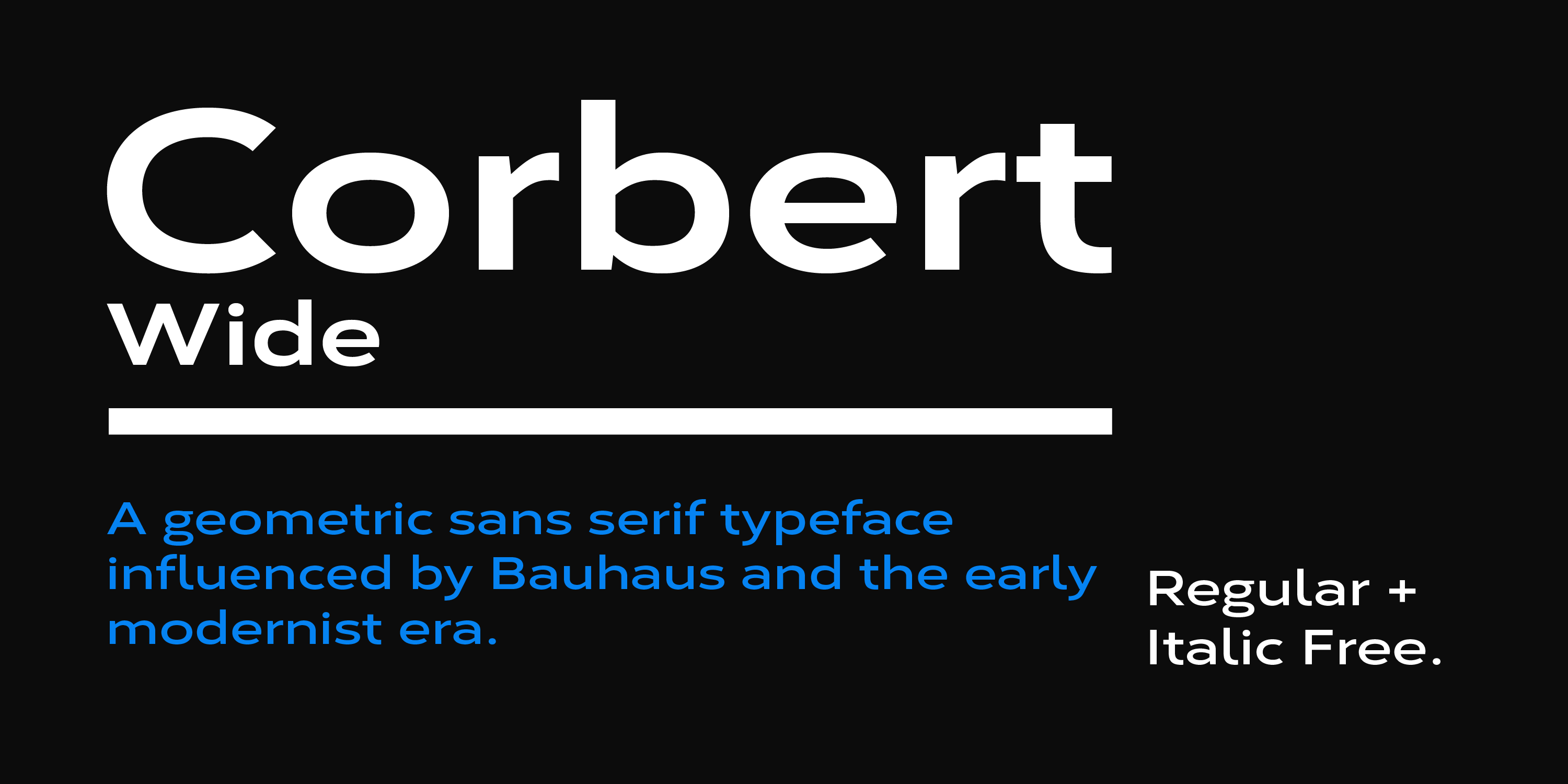
The Corbert Wide Font is an excellent choice for projects that demand a modern, expansive, and highly legible sans-serif aesthetic with a strong, confident presence. It's perfectly suited for bold headlines, architectural branding, large-format signage, automotive advertising, sports visuals, and any design that benefits from a strong, open, and impactful typeface. Its generous width and clean lines make it ideal for conveying a sense of stability, clarity, and contemporary authority.
What makes Corbert Wide Font so exciting is its ability to command attention through its spacious and well-defined letterforms. Its wide proportions create a solid, unwavering presence that ensures your text stands out, especially in display contexts. This font isn't just about reading words; it's about making a broad, confident statement. It excels at delivering maximum visual impact, allowing your headlines and key messages to spread out and establish a strong, undeniable presence. The clean, unembellished design speaks to efficiency and modern simplicity, making it versatile for a range of professional and impactful applications.
The Corbert Wide Font family typically focuses on providing a comprehensive range of weights to complement its inherent width, offering flexibility for various design needs. You can expect a full spectrum from Thin and Light to Regular, Medium, SemiBold, and Bold, often accompanied by complementary italic versions for each weight. This broad family allows for sophisticated typographic hierarchies, enabling precise control over emphasis, flow, and visual balance within your designs, all while maintaining its signature wide and open character.
Whether you're designing a large outdoor billboard, crafting a powerful corporate identity, or creating compelling promotional materials that demand immediate attention, the Corbert Wide Font Free Download offers an indispensable tool. Its commanding visual presence and undeniable clarity make it a premier choice for any project that needs a strong, unforgettable message with a sense of modern scale.